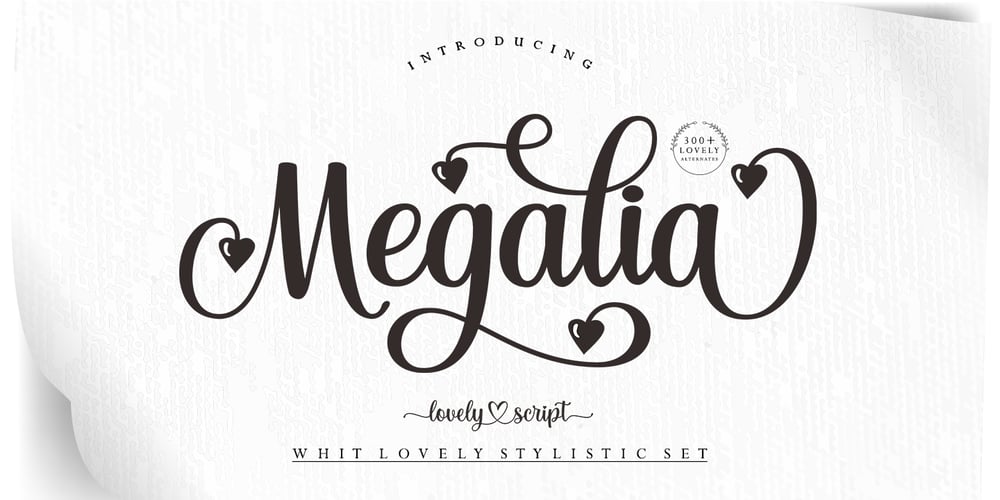
Megalia Script Font Family was designed by Rahmad Rizky and published by Rhd Studio. Megalia Script contains 1 styles and family package options. IntroducingMegalia Script in a beautiful handwritten style. Equipped with 300 glyphs. Megalia Script is perfect for branding projects, home appliance design, product packaging, use in business cards, invitation cards, etc. Simply as a stylish text overlay onto a background image or anything that requires a touch of elegance.